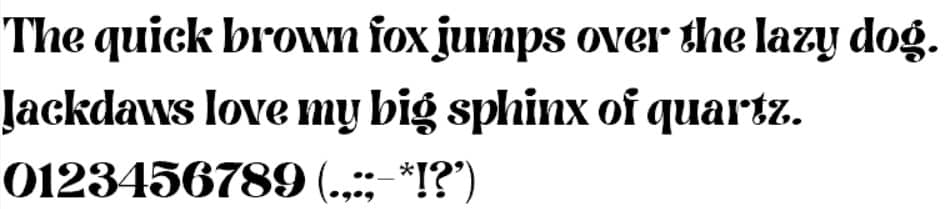
About Brasika Font
Brasika is a display typeface designed by Nurrontype. The subfamily is Regular. Brasika is a freeware font and it is available for personal use. This font has a fun and fancy vibe. You can install this font for various kinds of work. Free Download is available on our website. Brasika Font Free Download now with a single click.
You can utilize the Brasika Display to make fascinating design, covers, shop and store names, and logos.
The textual style Brasika Display is likewise ideal for marking projects, Homeware Designs, Product bundling – or basically as a snappy book overlay to any foundation picture.